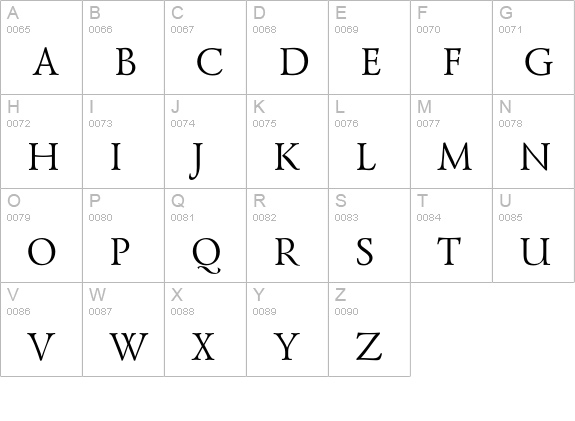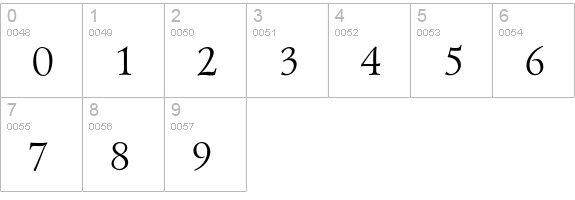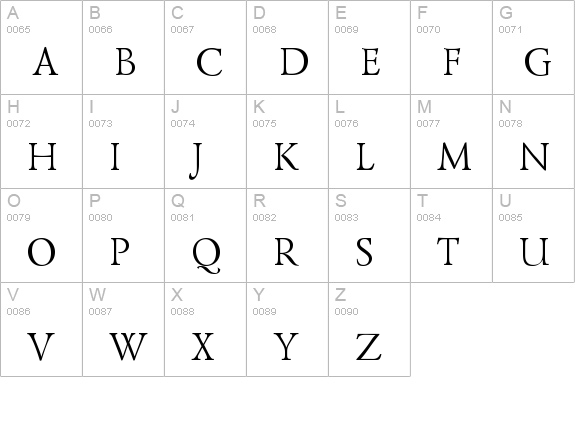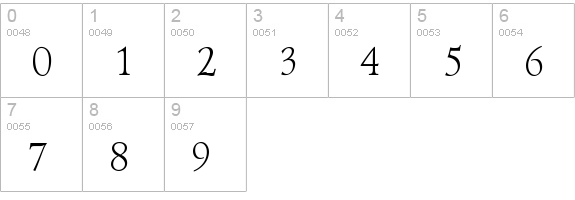
PM Lazurski Cyrillic Font Details
Introducing the captivating PM Lazurski Cyrillic font, a stunning typeface that effortlessly combines elegance and readability. With its intricate and graceful letterforms, this font captures the essence of traditional Cyrillic script while infusing it with a modern twist. From its meticulously designed serifs to the carefully crafted curves, PM Lazurski Cyrillic is a true masterpiece that will elevate any design project to new heights. What sets this font apart is not only its exceptional aesthetics but also its accessibility. PM Lazurski Cyrillic is available to everyone, completely free of charge. Yes, you read that right – this extraordinary font is freely accessible to all design enthusiasts, professionals, and creatives who seek to add a touch of sophistication to their work. To obtain this remarkable typeface, simply head over to FontsMarket.com where you can freely download PM Lazurski Cyrillic. This user-friendly platform offers a vast collection of fonts, and PM Lazurski Cyrillic stands out as a gem among them. With just a few clicks, you can seamlessly incorporate this font into your projects, whether it be for advertising, branding, editorial design, or any other creative endeavor. PM Lazurski Cyrillic is a versatile font that adapts effortlessly to various design styles and purposes. Its clean lines and legible characters make it ideal for both print and digital applications. Whether you're designing a logo, creating a website, or crafting an invitation, this font will bring a touch of sophistication and timeless elegance to your work. Discover the beauty and versatility of PM Lazurski Cyrillic font today. Don't miss out on this incredible opportunity to enhance your designs with a font that is both visually stunning and freely available. Download PM Lazurski Cyrillic now and let your creativity soar to new heights.